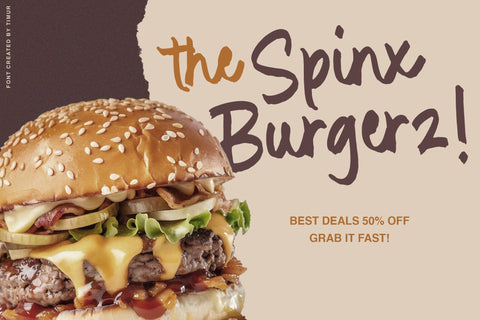
Rolling Bakery - Rough Handwritten Script
Proudly Presenting Rolling Bakery
Rolling Bakery A Rough Handwritten Script The display font I created features a Latin form with sloppy edges like beautiful handwriting, giving it a distinctive appearance.
This font resembles a Latin hand, With attention to detail and beautiful abstract strokes at each end, it adds a touch of sophistication and distinctive style to any design or text it is applied to.
Its distinctive and individualistic nature makes it perfect for creating attention-grabbing titles, logos or other elements.
Rolling Bakery Font also supports multilingual.
- Ending Swash